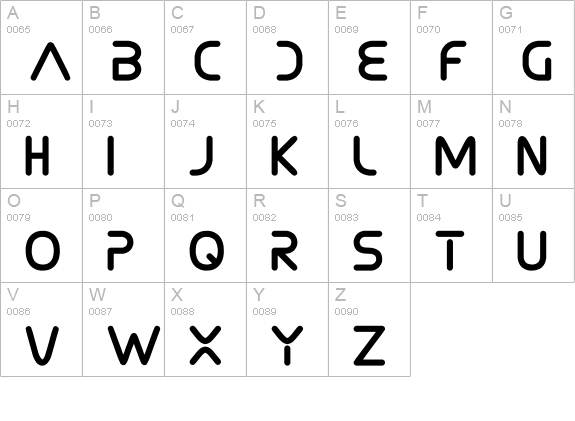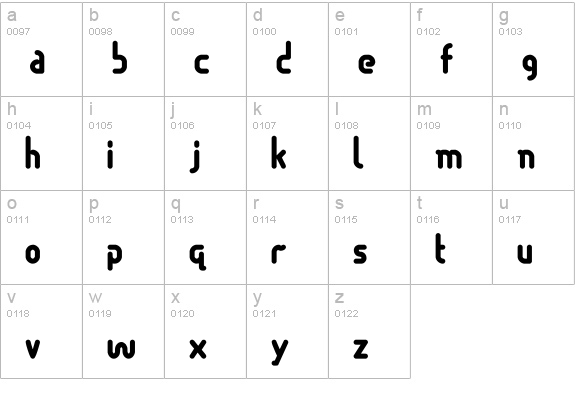
SonicDemonFont Font Details
Introducing SonicDemonFont, a captivating and dynamic font that will bring your creations to life! This unique typeface is designed to unleash the power and energy of your designs, making them stand out from the crowd. With its sleek and modern design, SonicDemonFont is perfect for various projects, such as logos, posters, headlines, and more. What makes SonicDemonFont even more enticing is that it is completely free! That's right, this stunning font is freely available to download at FontsMarket.com. Now you can enhance your designs without breaking the bank. Whether you're a professional graphic designer or a creative enthusiast, SonicDemonFont is a must-have addition to your font collection. Featuring bold and edgy letterforms, SonicDemonFont exudes a sense of adventure and excitement. Its sharp angles and unique curves give your text a powerful and bold appearance, making it impossible to ignore. The versatility of this font allows it to seamlessly adapt to various styles and themes, adding a touch of intensity to your projects. With SonicDemonFont, your designs will command attention and leave a lasting impression. The distinctive character of this font makes it perfect for gaming-related projects, music posters, or any design that needs a touch of rebelliousness. Its modern and sleek aesthetic will instantly elevate your visuals and make them unforgettable. But the best part? SonicDemonFont is just a few clicks away. Head over to FontsMarket.com and download this incredible font for free. Don't miss the opportunity to add this powerful and captivating typeface to your creative arsenal. With SonicDemonFont, your designs will take on a whole new level of energy and impact. So don't wait any longer, unleash your creativity with SonicDemonFont and let your designs shine!